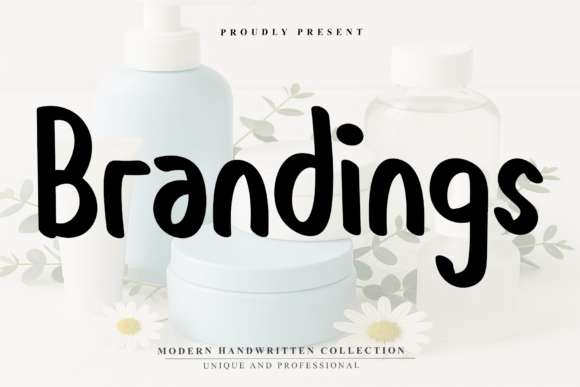
The Power of Personality: Discovering the Charm of Brandings Font
I’ll never forget the time I was working on a branding project for a cozy little café. My client wanted a font that would capture the warmth and friendliness of their business, but I was struggling to find the perfect fit. That was until I stumbled upon Brandings Font – a casual handwritten font that radiates warmth and personality. In this article, I’ll share my experience with Brandings Font, its unique features, and how to make the most of it in your designs.
A Personal Review: What I Love (and What to Watch Out For)
I’ve had the pleasure of working with Brandings Font on several projects, and here’s what I think:
- ✨ **Smooth strokes and natural curves**: Brandings Font features effortless, flowing letterforms that give it a genuine, hand-written feel.
- ✅ **Easy readability**: Despite its casual nature, Brandings Font is surprisingly readable, even at smaller sizes.
- ✅ **Versatile character**: This font is perfect for a wide range of design applications, from quotes and invitations to social media posts and branding.
Now, I’m not going to sugarcoat it – there are a few quirks to watch out for:
- 🤔 **Limited formal settings**: Brandings Font is, by design, a casual font. It might not be the best fit for more formal or corporate designs.
- ⚠️ **Glyph support**: While Brandings Font has a range of OpenType features, some glyphs might not be supported in all platforms or software.
The Story Behind Brandings Font
While I couldn’t find any information on the exact origins of Brandings Font, I like to imagine that it was created by a designer who wanted to capture the essence of handwritten communication in a digital age. Perhaps they drew inspiration from their own handwritten notes, or the charming lettering on vintage signs. Whatever the story, Brandings Font is a beautiful example of how typography can evoke emotion and personality.
| Font Name | Brandings Font |
| Author | Preketek texs |
| What makes Brandings Font unique? | Brandings Font features smooth strokes, natural curves, and effortless letterforms that give it a genuine, hand-written feel. |
| Is Brandings Font suitable for formal designs? | While Brandings Font is a beautiful font, it’s best suited for casual designs. For more formal projects, you might consider a different font. |